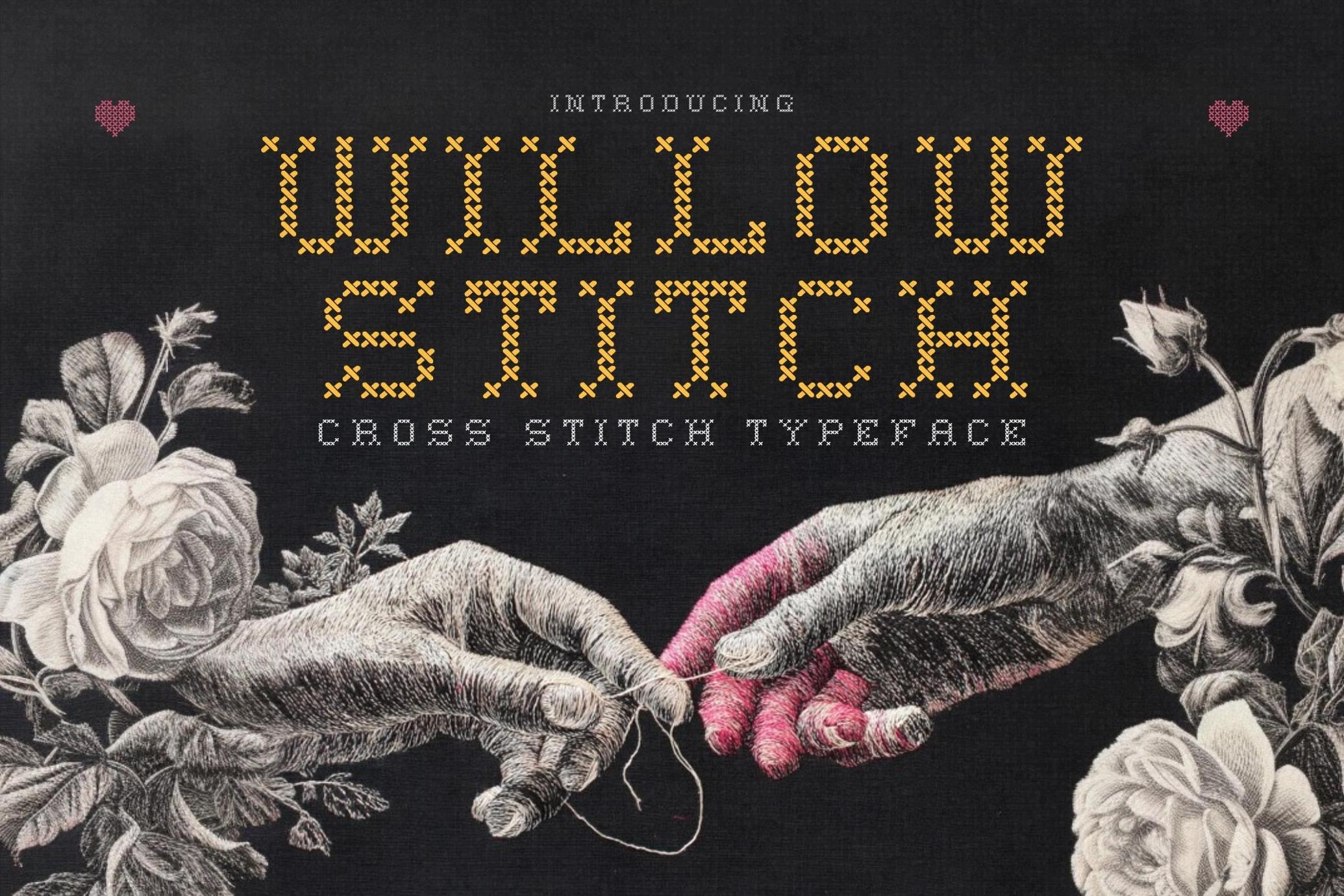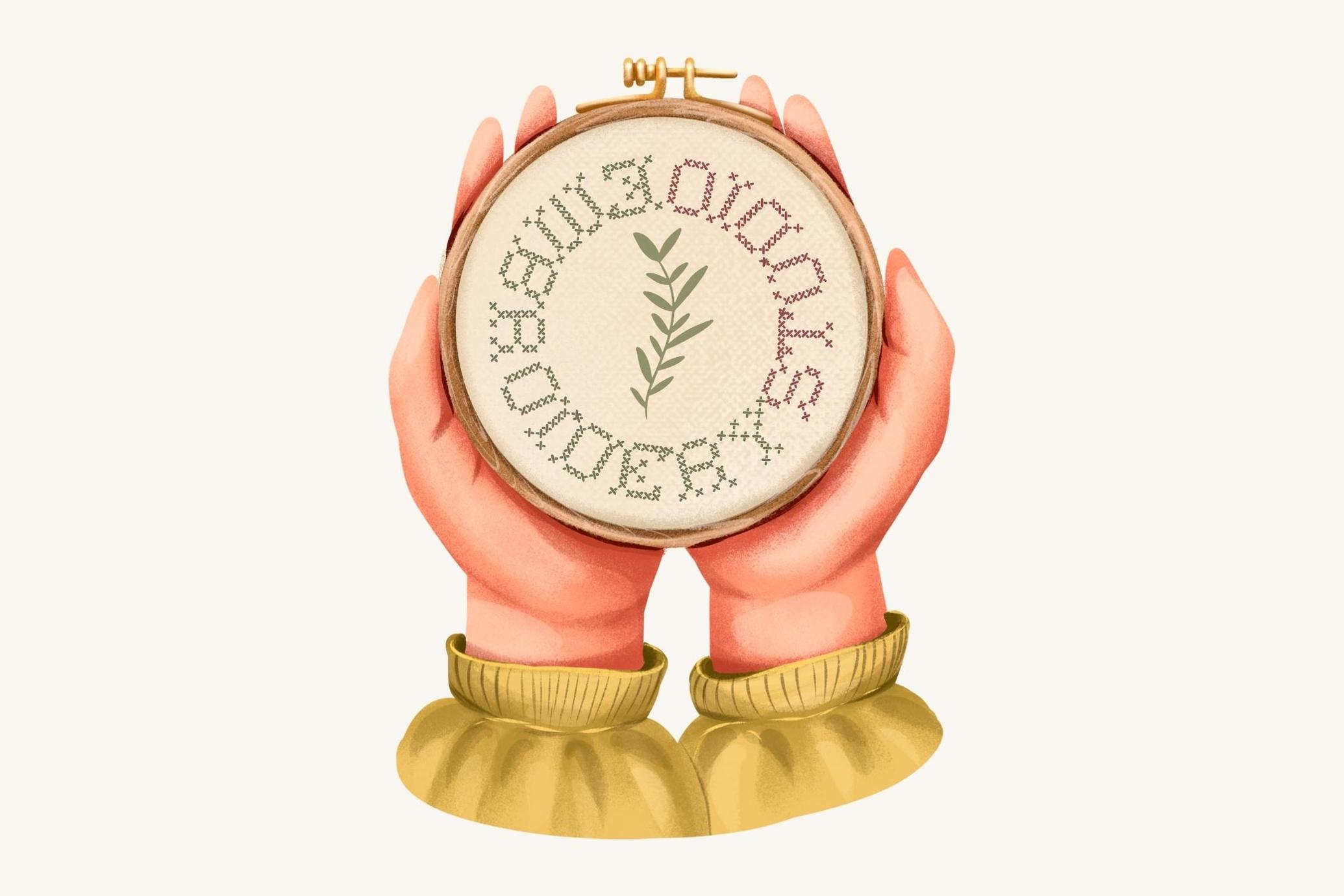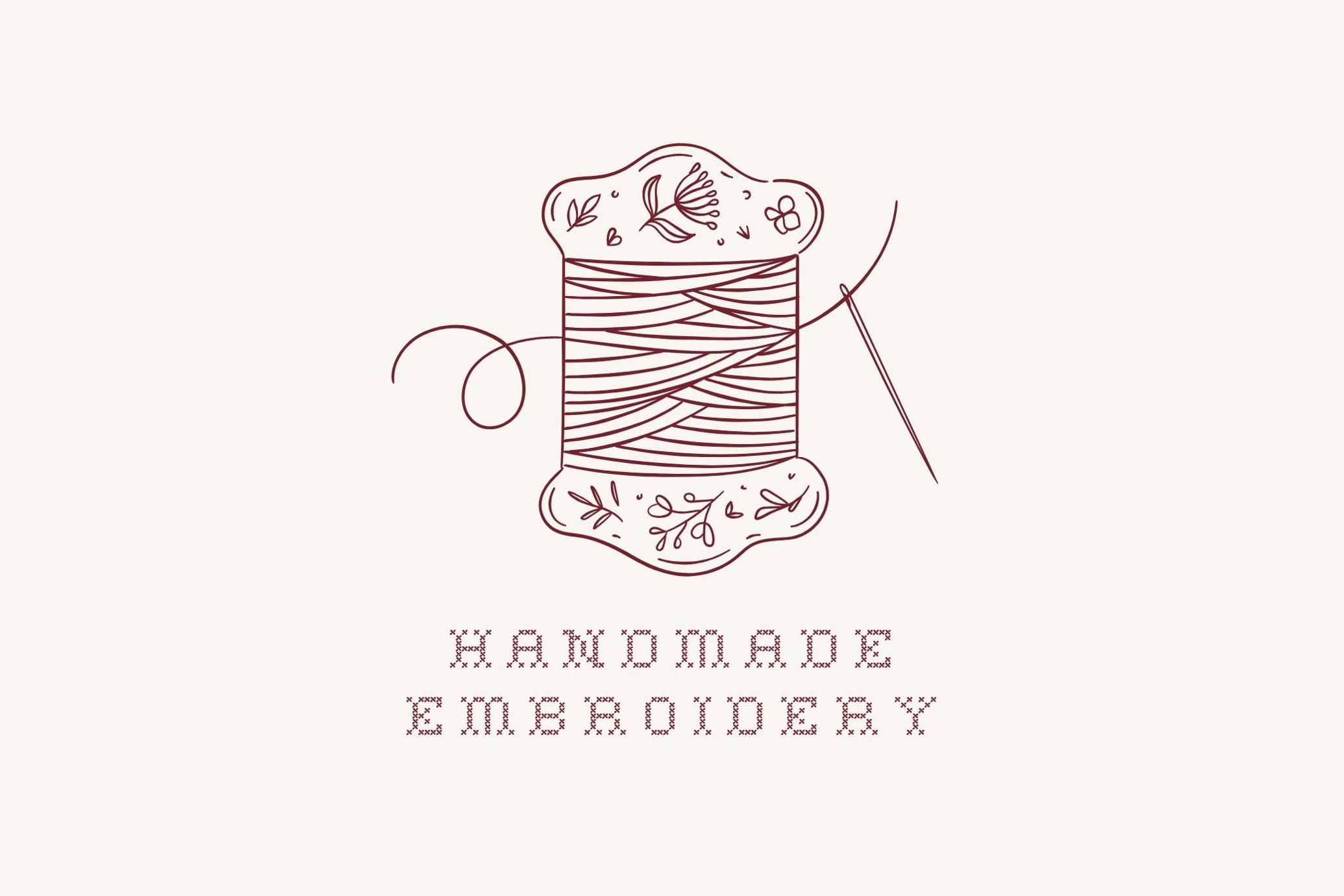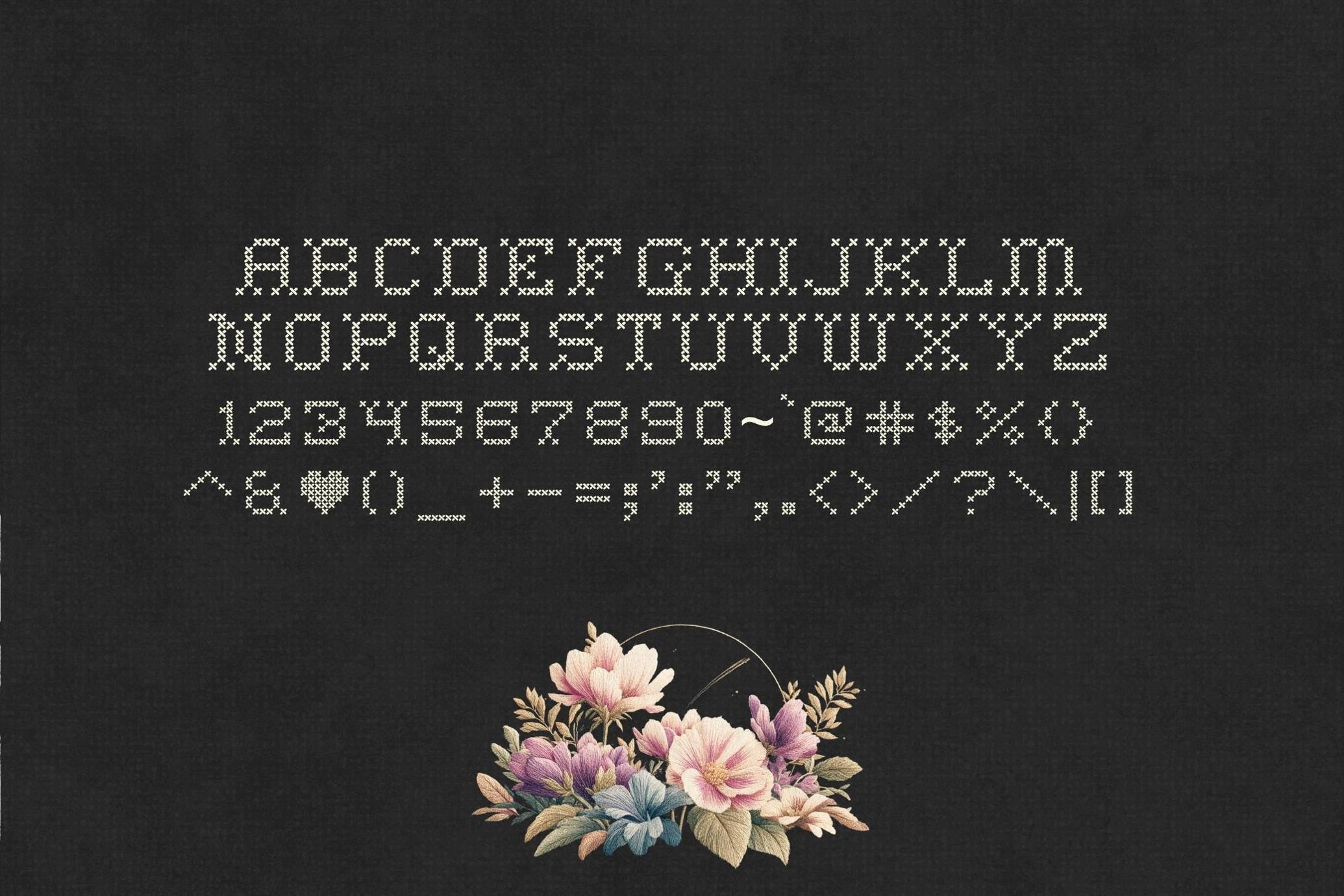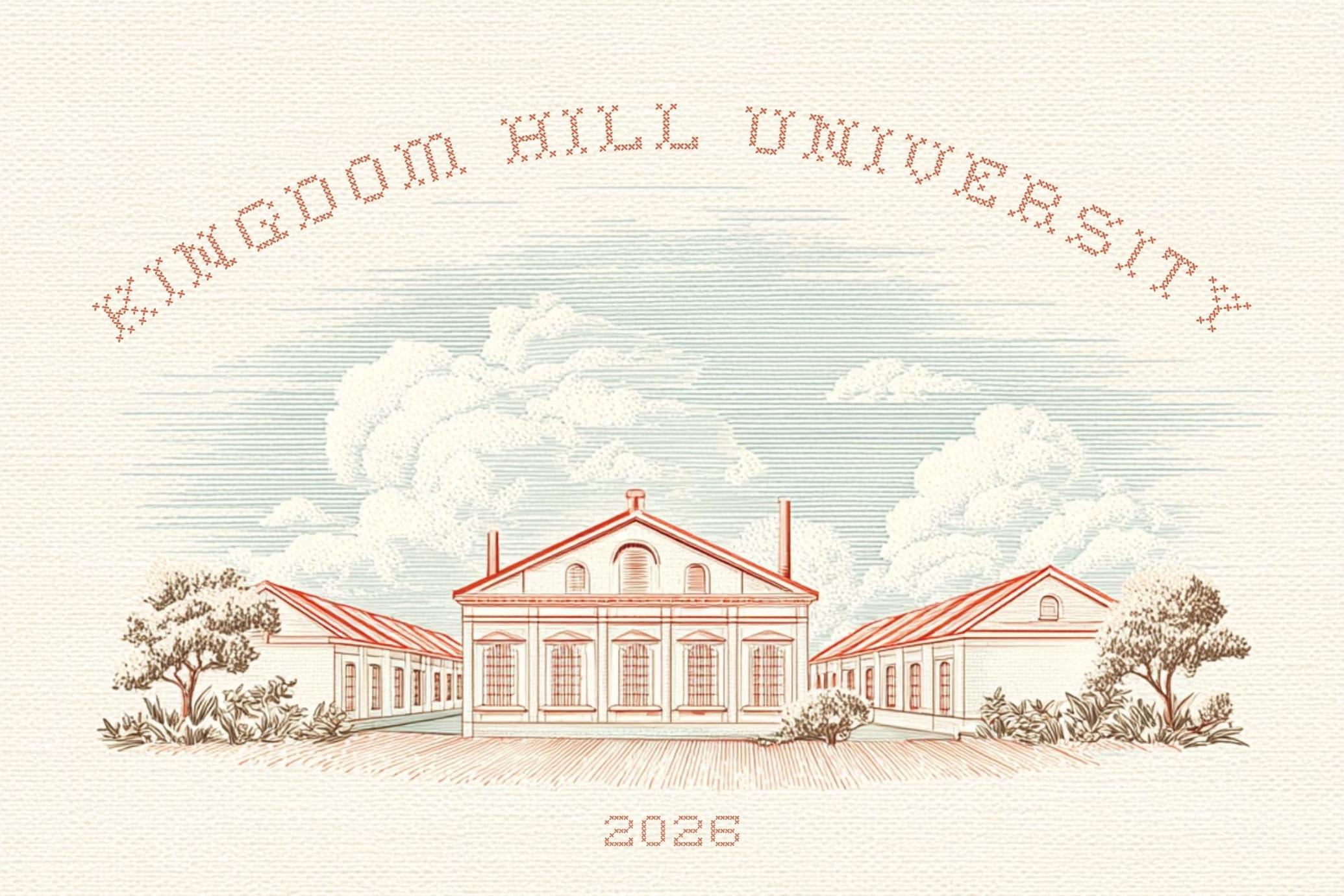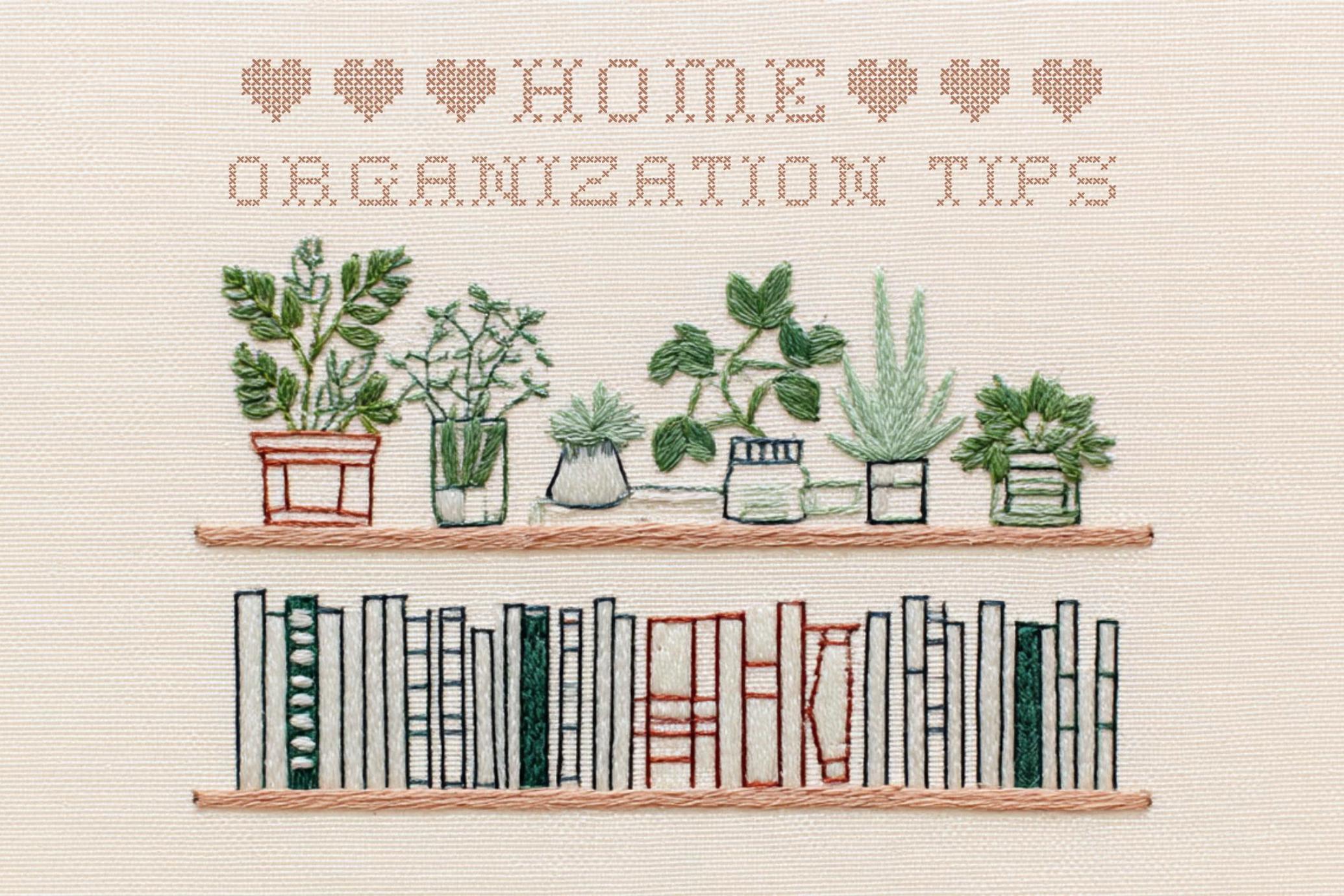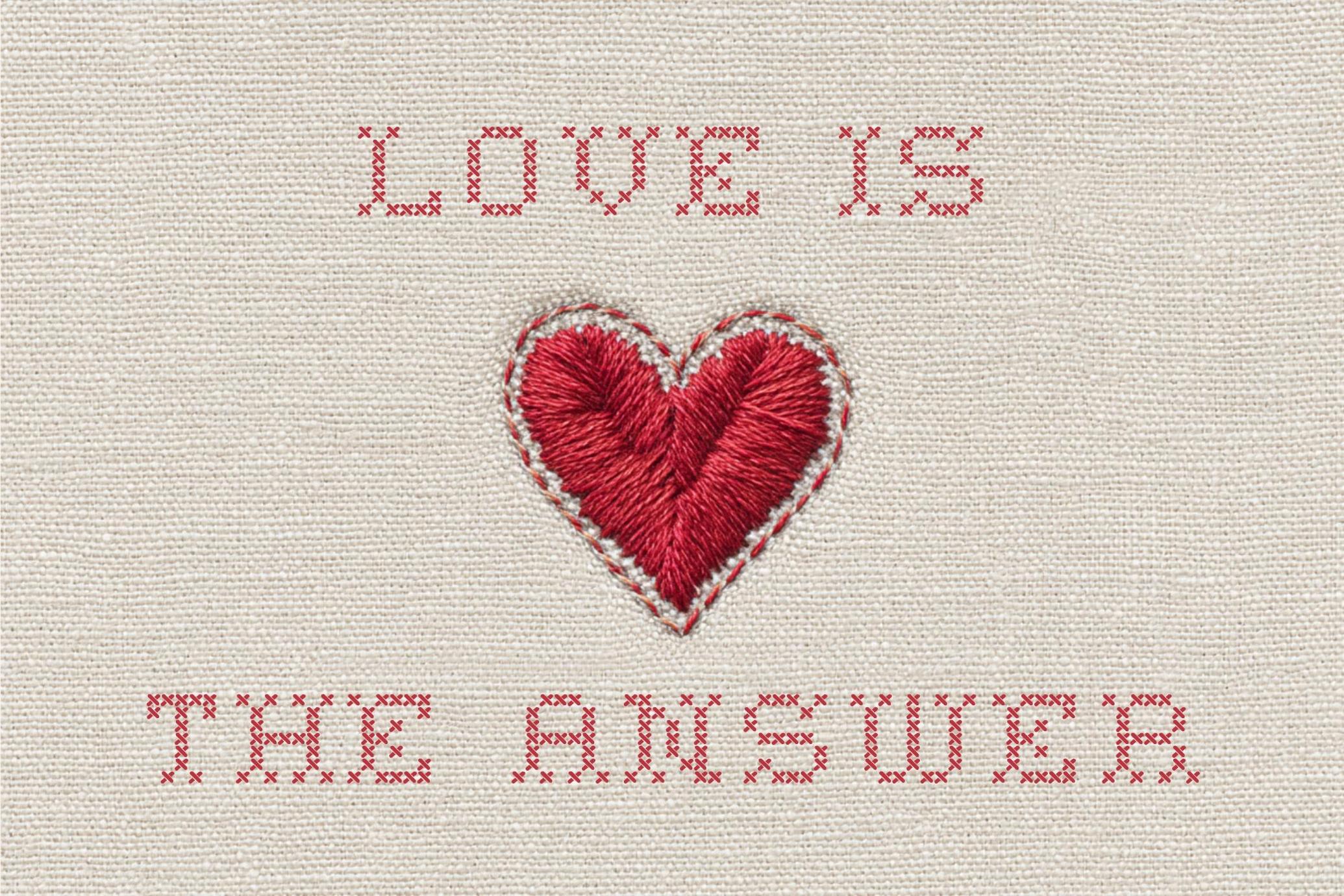
Willow Stitch - Cross Stitch Font
Say hello to Willow Stitch, a beautifully handcrafted cross stitch font designed especially for crafters, hobbyists, and embroidery lovers. Whether you’re personalizing a handmade gift, designing a heartwarming quote for your craft room, or creating digital patterns that feel like home, Willow Stitch brings the warmth and charm of traditional embroidery straight into your designs.
Each letter is carefully stitched with love, mimicking the cozy texture of real cross-stitching, making it perfect for everything from DIY labels and scrapbooking to Etsy shop branding, baby announcements, farmhouse signage, and more.
With its nostalgic nod to handmade artistry and its pixel-perfect style, Willow Stitch isn’t just a font, it’s a celebration of the creative spirit.